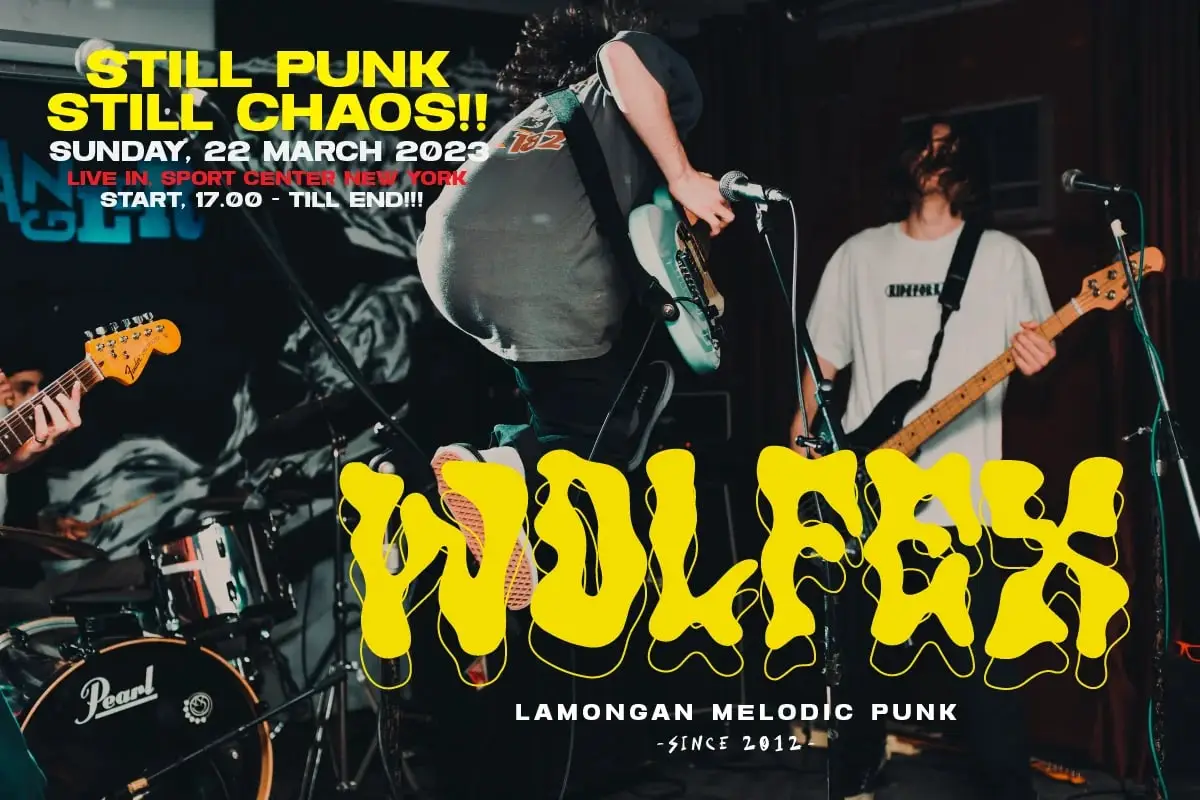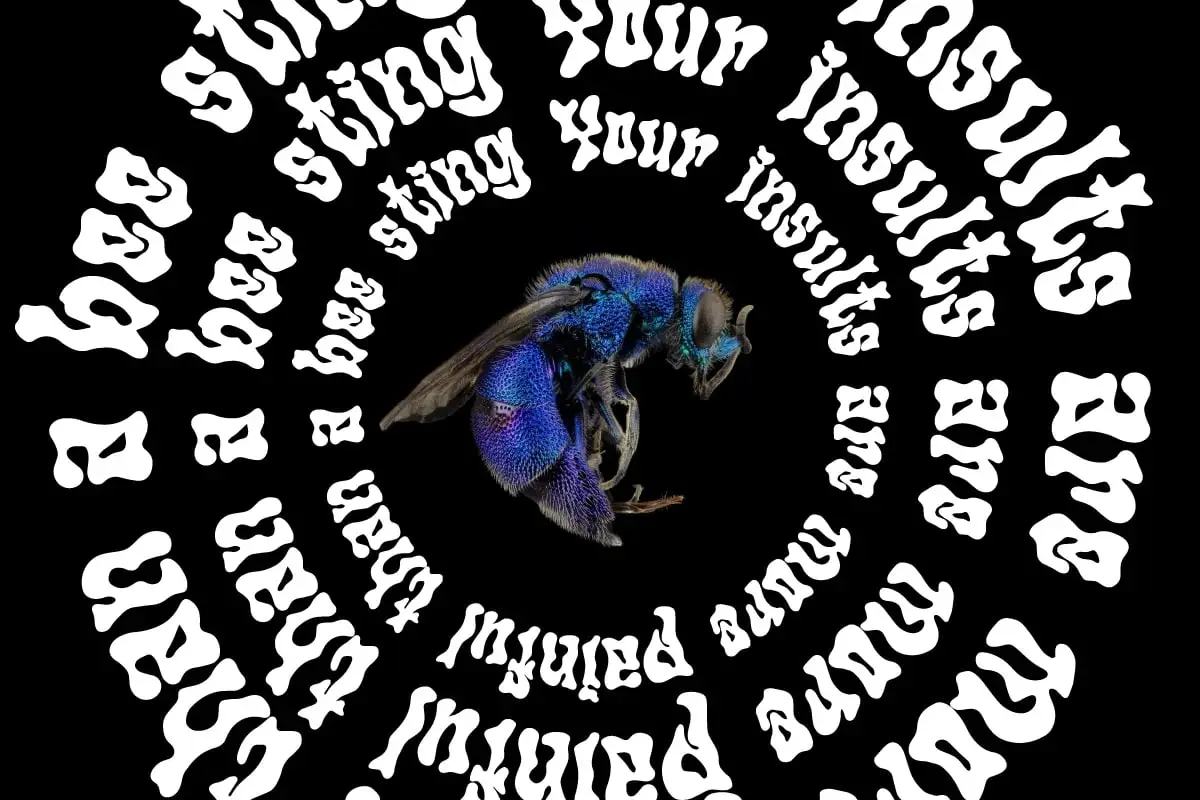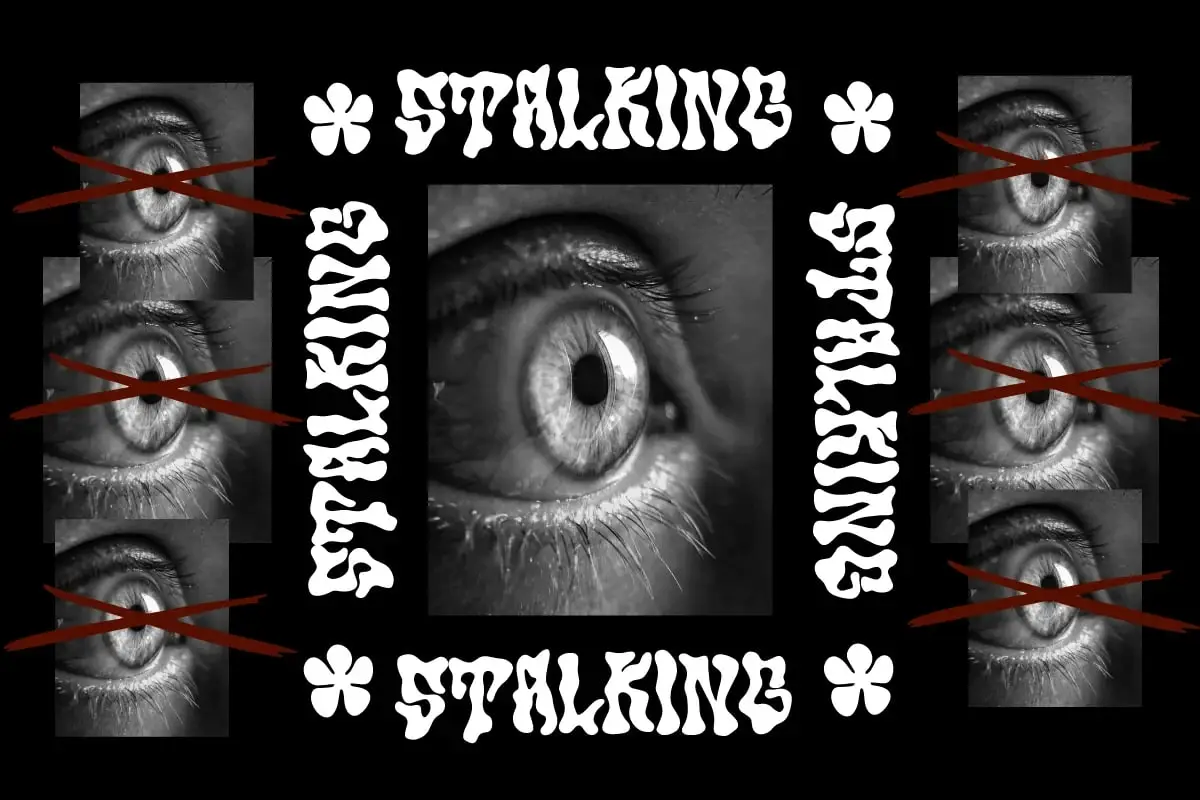
Grinder-Liquid Display Font
The Grinder-Liquid Display Font is a unique typeface designed to make a bold statement. Its fluid, dynamic shapes are perfect for eye-catching headlines, branding, and creative projects. This font features a modern display style that captures attention and adds a contemporary flair to your designs.
• Style: Display
• Ideal for branding, logos, and promotional materials.
• Great for web design and user interfaces.
• Use in print media for posters, flyers, and more.